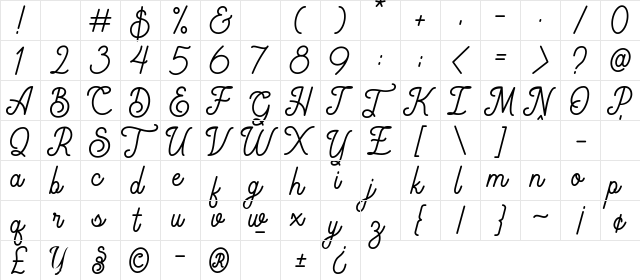
Rigoletto Regular
| Designer | Sabertype Studio |
Design Context for Rigoletto Typeface
Rigoletto is a composed and adaptable typeface that performs quietly and consistently across a wide range of design contexts.